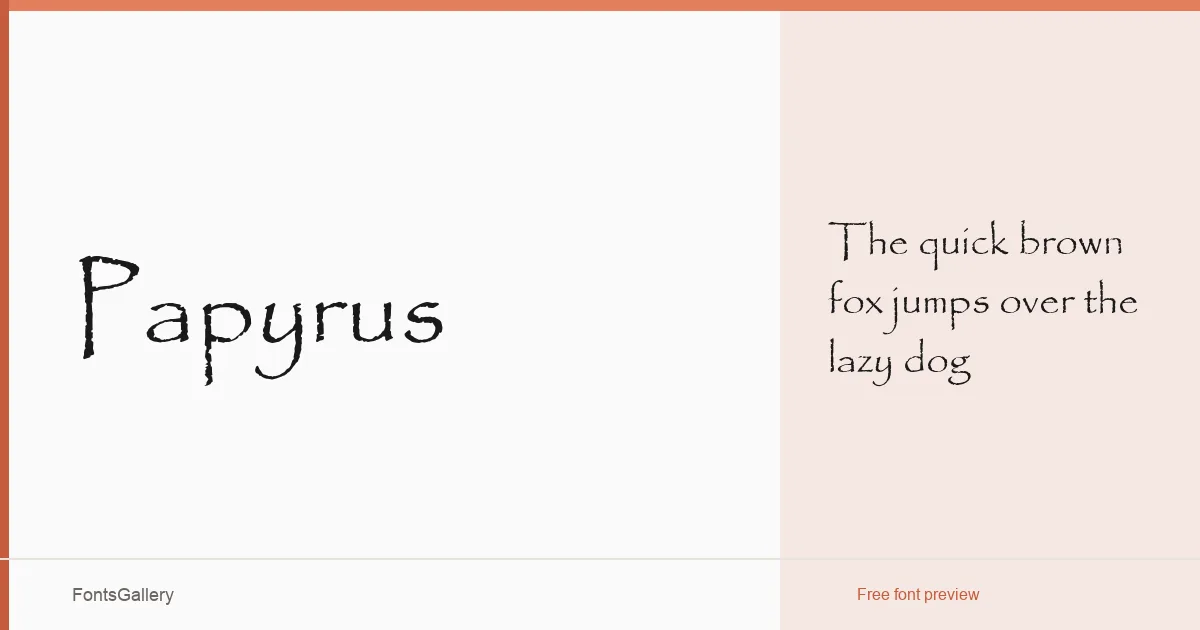
About Papyrus Font
Papyrus is a distinctive display typeface that evokes a sense of ancient craftsmanship and timeless character. Its weathered, hand-crafted aesthetic gives it an immediately recognizable presence that stands apart from conventional type choices. With its vintage charm and whimsical personality, this typeface has earned a lasting place in the world of expressive typography.
The letterforms of Papyrus carry a rustic, organic quality that feels both classic and richly textured, as though written on aged parchment with a natural reed or brush. Each character features irregular edges and subtle roughness that reinforce its vintage and whimsical mood, lending a warmth and authenticity rarely found in more geometric display fonts. The overall effect is one of handcrafted elegance that balances decorative flair with a grounded, classical sensibility.
Papyrus is well suited for projects that benefit from a heritage-inspired or artisanal feel, including logos, posters, book covers, greeting cards, and certificates. Its expressive character makes it particularly effective as a headline or focal display element where visual impact and personality are priorities. For a balanced typographic pairing, consider combining Papyrus with the clean neutrality of Helvetica or the complementary style of Aresink.